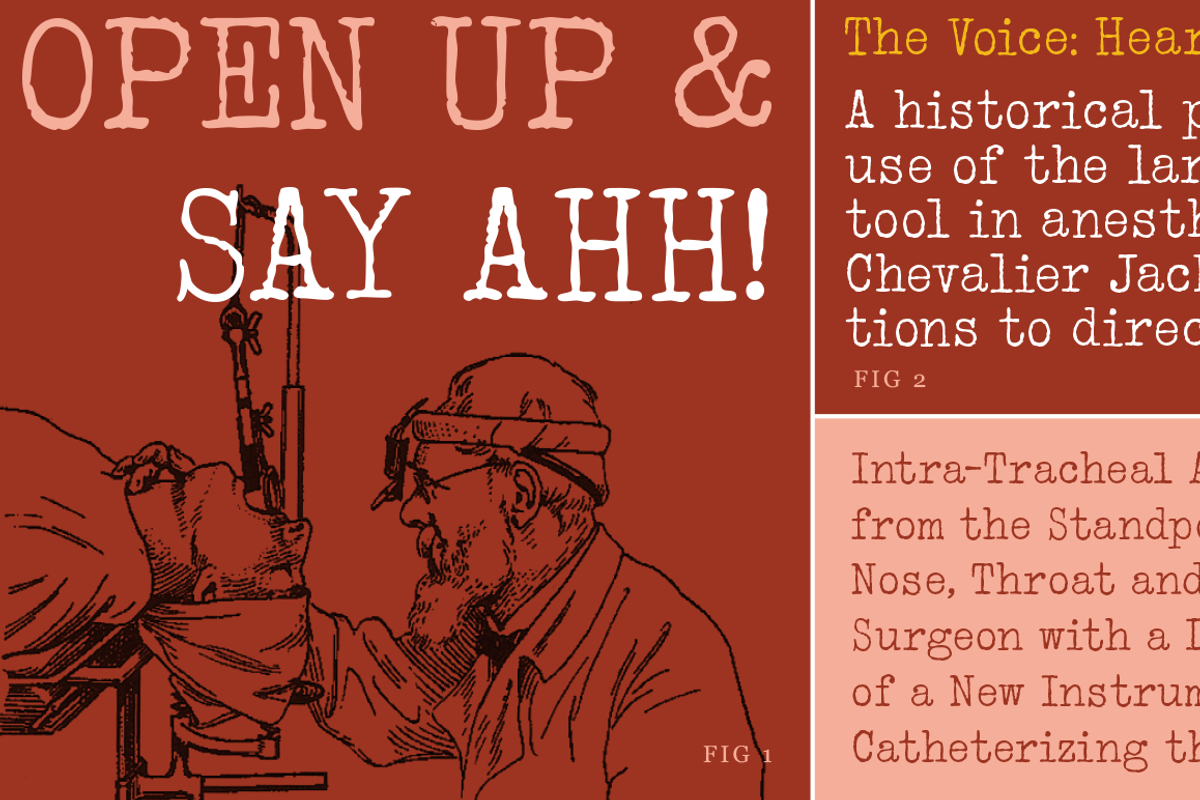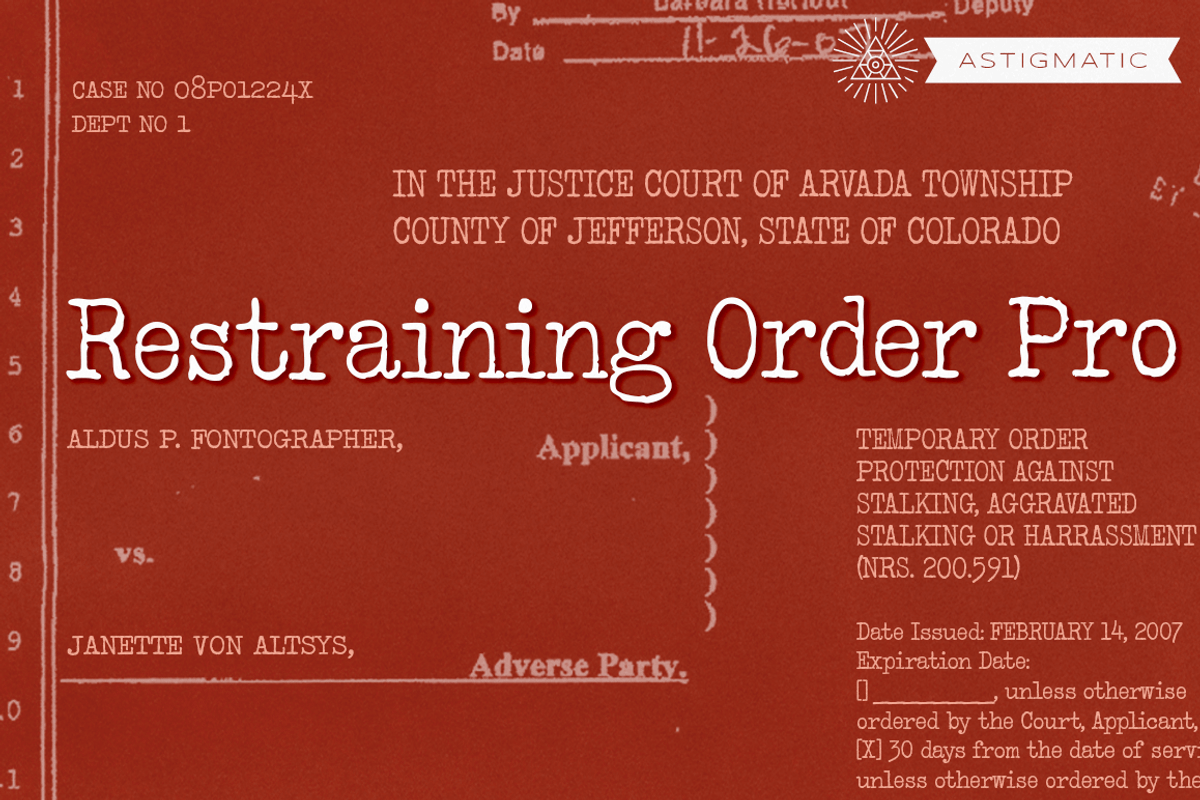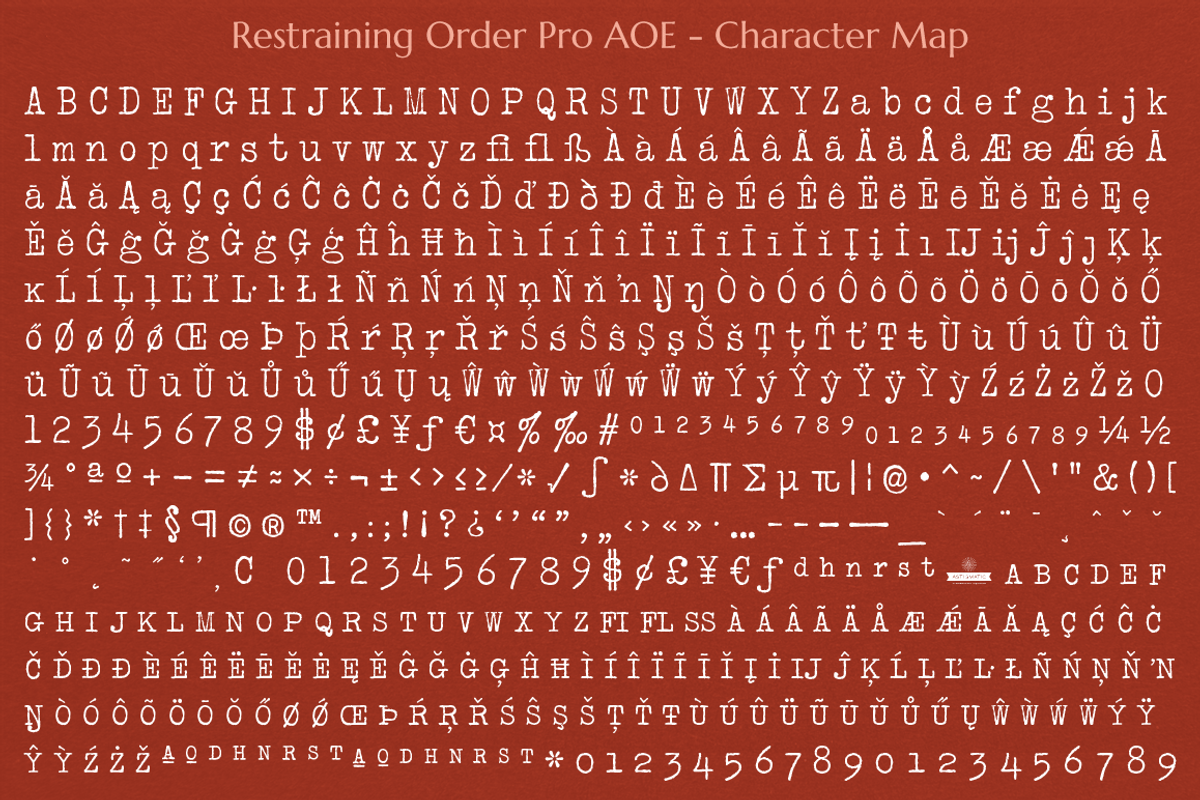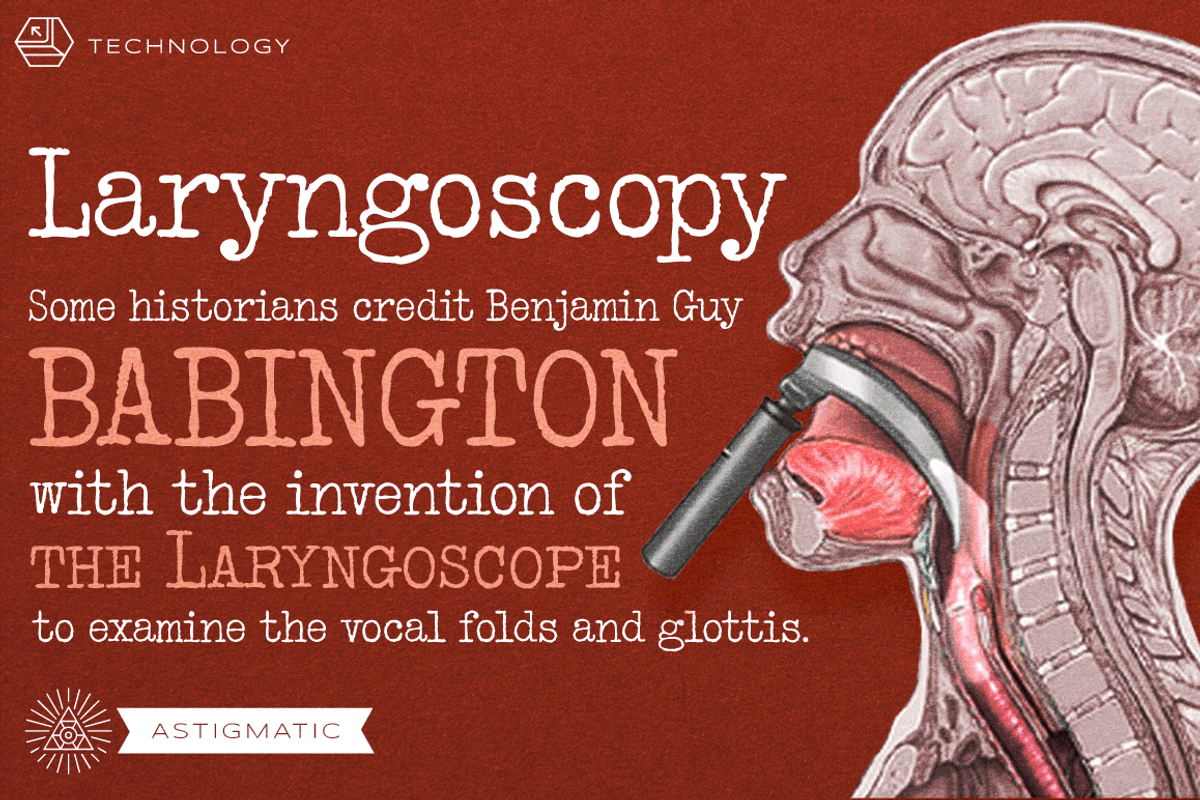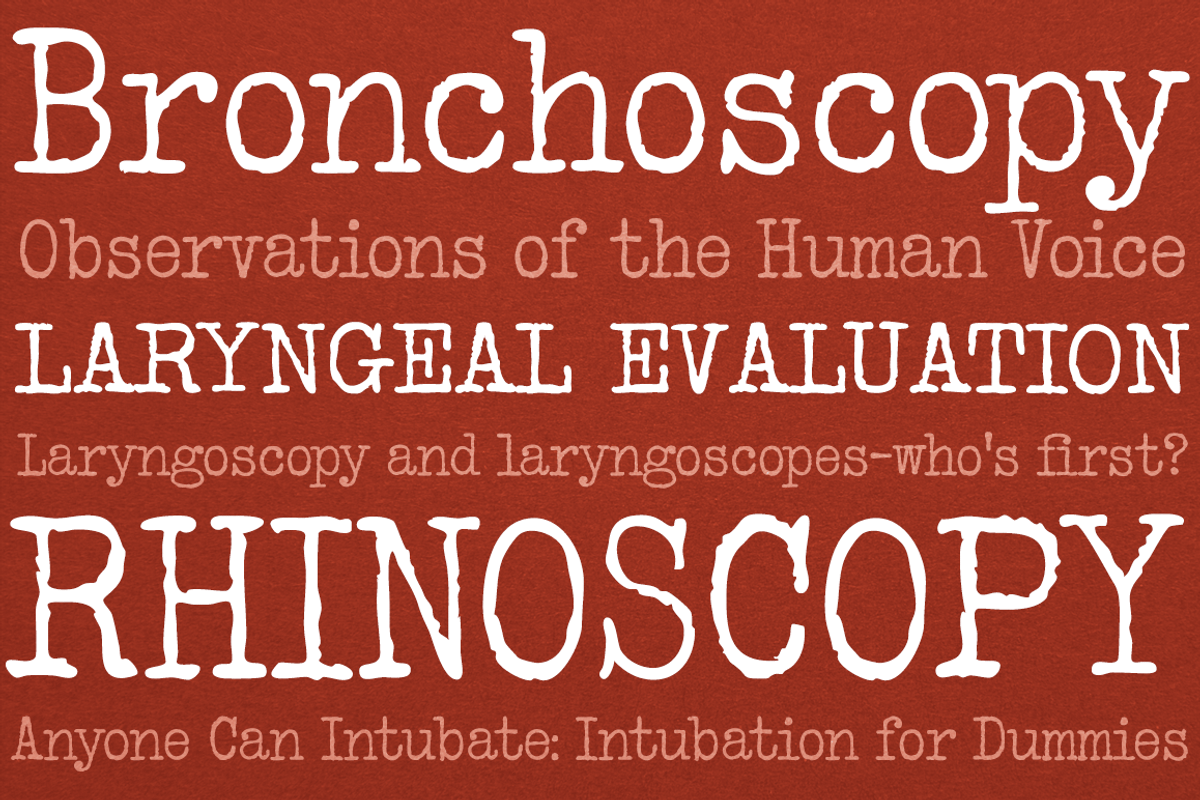
Restraining Order Pro
Restraining Order Pro brings the unique style of a vintage typewriter keyset to the digital age. Antique typewriters have an incredible warmth and appeal to them, primarily because of their unpredictable "grunge" results that were a mix from the force of keystrokes to the wear of the ribbon and paper texture. This typeface is further fleshed out with SmallCaps and extensive figure sets to add a more serious note to the nature of the typeface, when needed.
Extensive language support. Restraining Order Pro has accented and special characters that support the following languages: Afrikaans, Albanian, Basque, Bosnian, Breton, Catalan Cornish, Corsican, Croatian, Czech, Danish, Dutch, Embu, English, Esperanto, Estonian, Faroese, Filipino, Finnish, French, Galician, German, Hungarian, Icelandic, Irish, Indonesian, Italian, Kurdish, Leonese, Luxenbourgish, Malay, Maltese, Manx, Maori, Meru, Morisyen, North Ndebele, Norwegian Bokmål, Norwegian Nynorsk, Nyankole, Occitan, Oromo, Polish, Portuguese, Rhaeto-Romanic, Romanian, Scottish Gaelic, Scots, Serbian (Latin), Slovak, Slovenian, Spanish, Swahili, Swedish, Tagalog, Turkish, Walloon, & Welsh.
Antique typewriters are incredible, but they aren't something easily accessible to everyone, nor do most people want to fiddle with white out edits and the like. That's why typewriter fonts that capture the flavor of vintage typewriters are a no brainer (convenient and easily editable). I hope you enjoy playing with it just as much as I had fun making it.